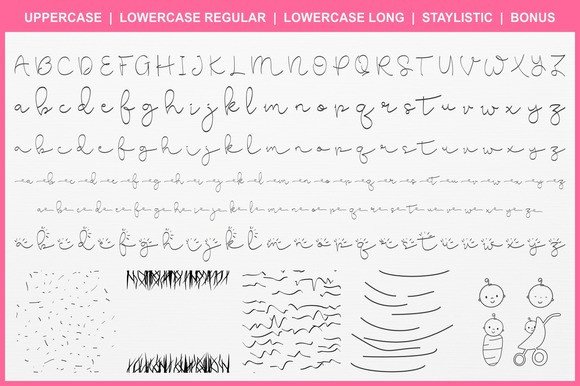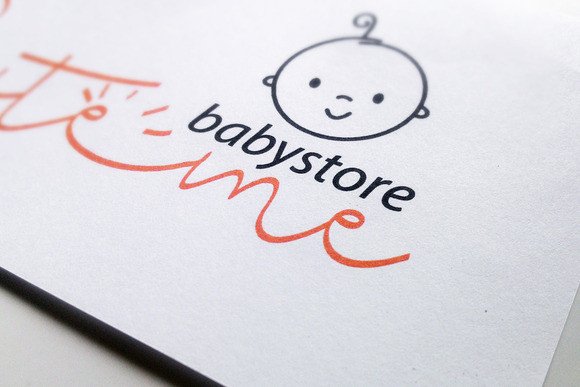
Cute Baby Font
db-ku.com - Script & Handwritten -- Cute baby is a modern, elegant handwritten script font. Specially made for newborn baby’s but can be used for wedding invitations, signatures, T-shirts, posters, and anything else you can imagine with this elegant writing as well.